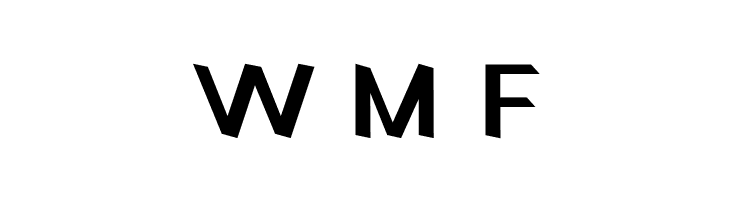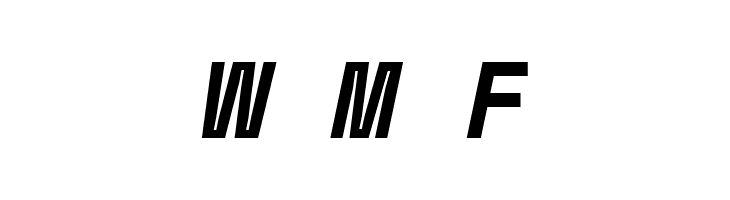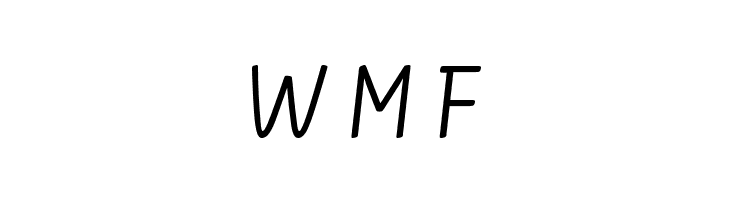
A bold, playful font with geometric and organic shapes.
A clean, modern sans-serif typeface with excellent readability.
A modern, geometric sans-serif font with uniform strokes and balanced proportions.
A bold, monospaced font with a modern, geometric design.
A bold, italic, monospaced font with a modern and dynamic style.
A modern, monospaced font with geometric shapes and low contrast.
A modern, monospaced italic font with equal character width and medium contrast.
A clean, modern sans-serif font with excellent readability and versatility.
A playful, casual font with smooth, rounded letterforms and a slightly slanted style.
A clean, modern sans-serif font with uniform stroke width and high legibility.